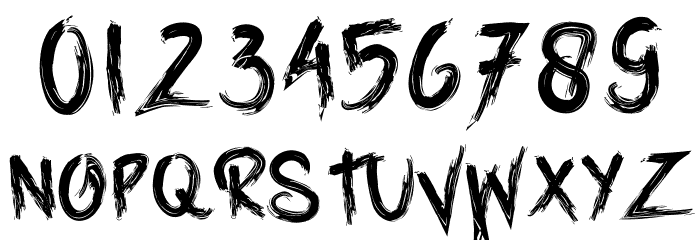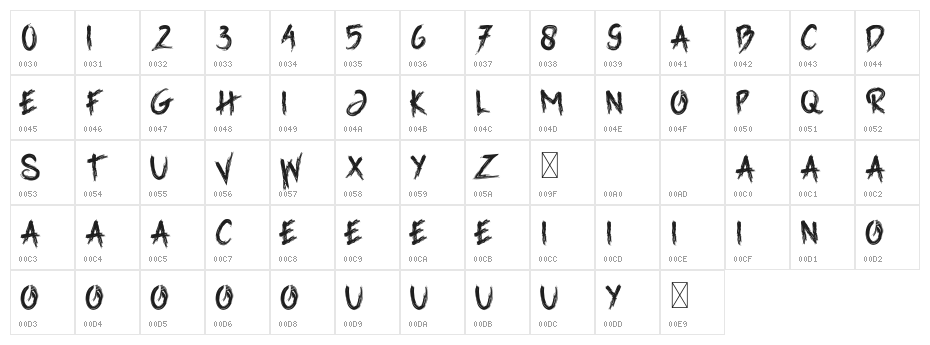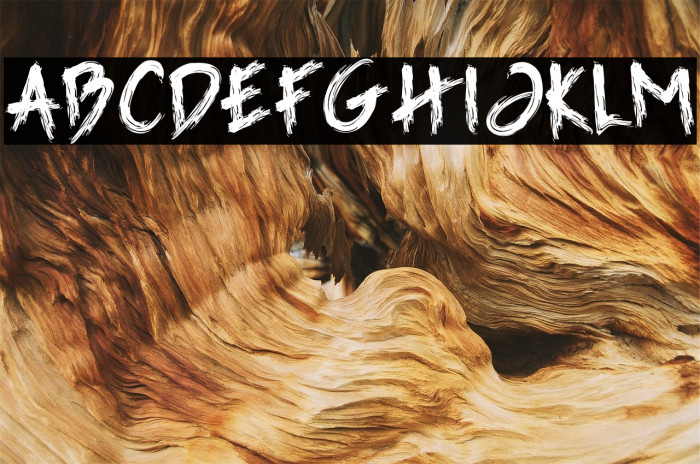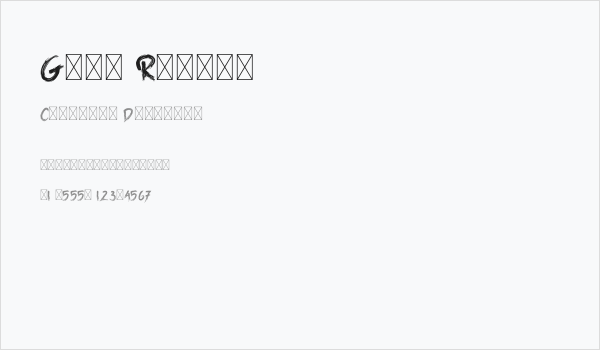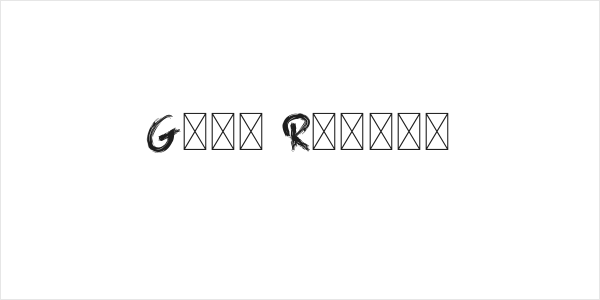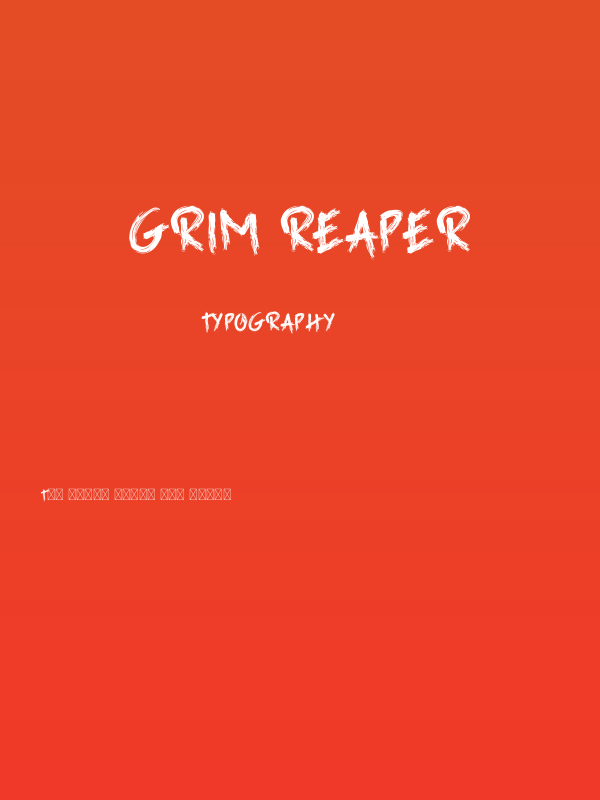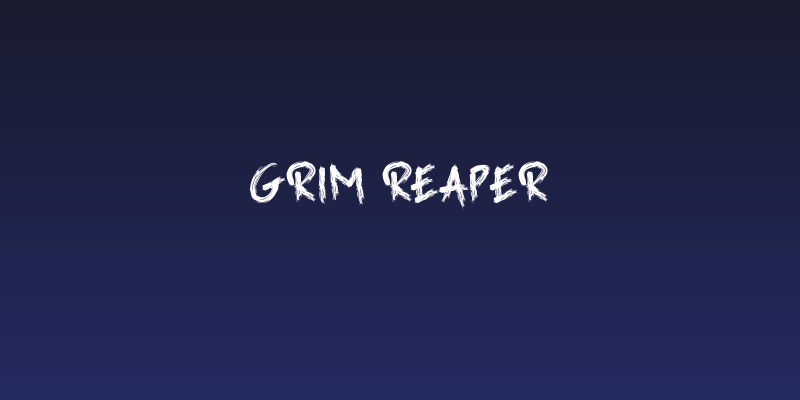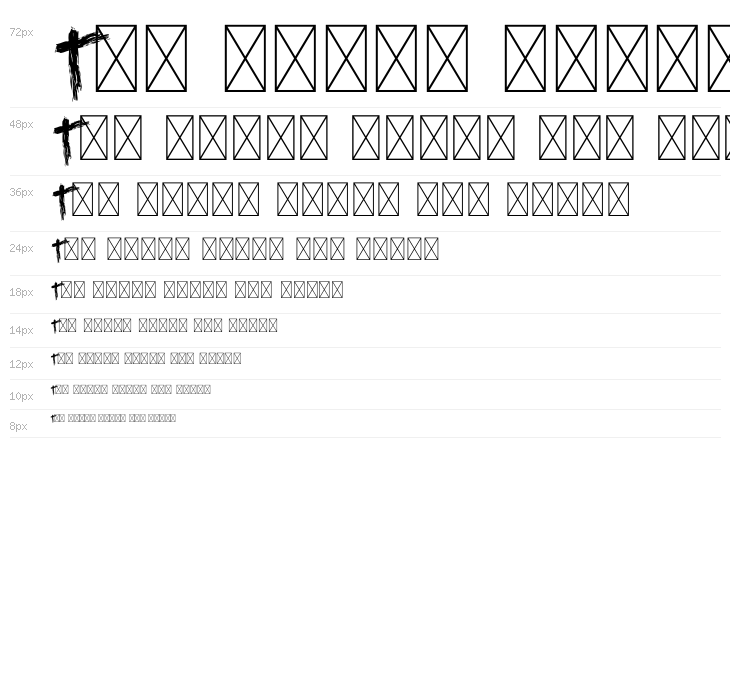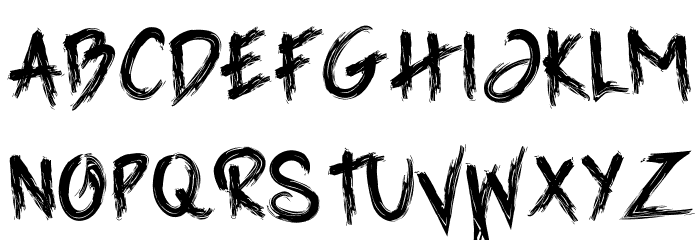
Grim Reaper Font
Grim Reaper Description
This font features a bold, distressed style with jagged edges and a hand-drawn appearance. The characters are uneven and dynamic, creating a sense of movement and energy. The uppercase and lowercase letters maintain a consistent style, with strokes that vary in thickness, adding to the chaotic yet artistic feel. Numbers and special characters follow the same aesthetic, making the font versatile for various creative applications. Its unique design is reminiscent of horror or thriller themes, making it suitable for projects that require a dramatic and edgy look.
| Proposed Projects | Ideal for horror movie posters, Halloween event flyers, edgy album covers, and video game titles. |